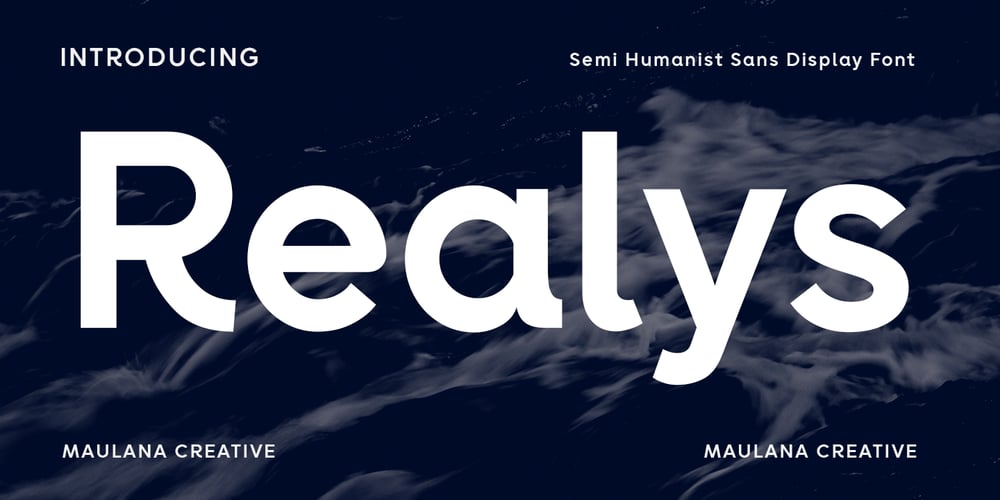
MC Realys Font Family was designed by Gilang Maulana and published by Maulana Creative. MC Realys contains 1 styles and family package options. Realys is a semi humanist sans Display font. Regular stroke, fun character with a bit of ligatures and alternates. To give you an extra creative work. Realys font support multilingual more than 100+ language. This font is good for logo design, Social media, Movie Titles, Books Titles, a short text even a long text letter and good for your secondary text font with script or serif. Make a stunning work with Realys font. Cheers, Maulana Creative